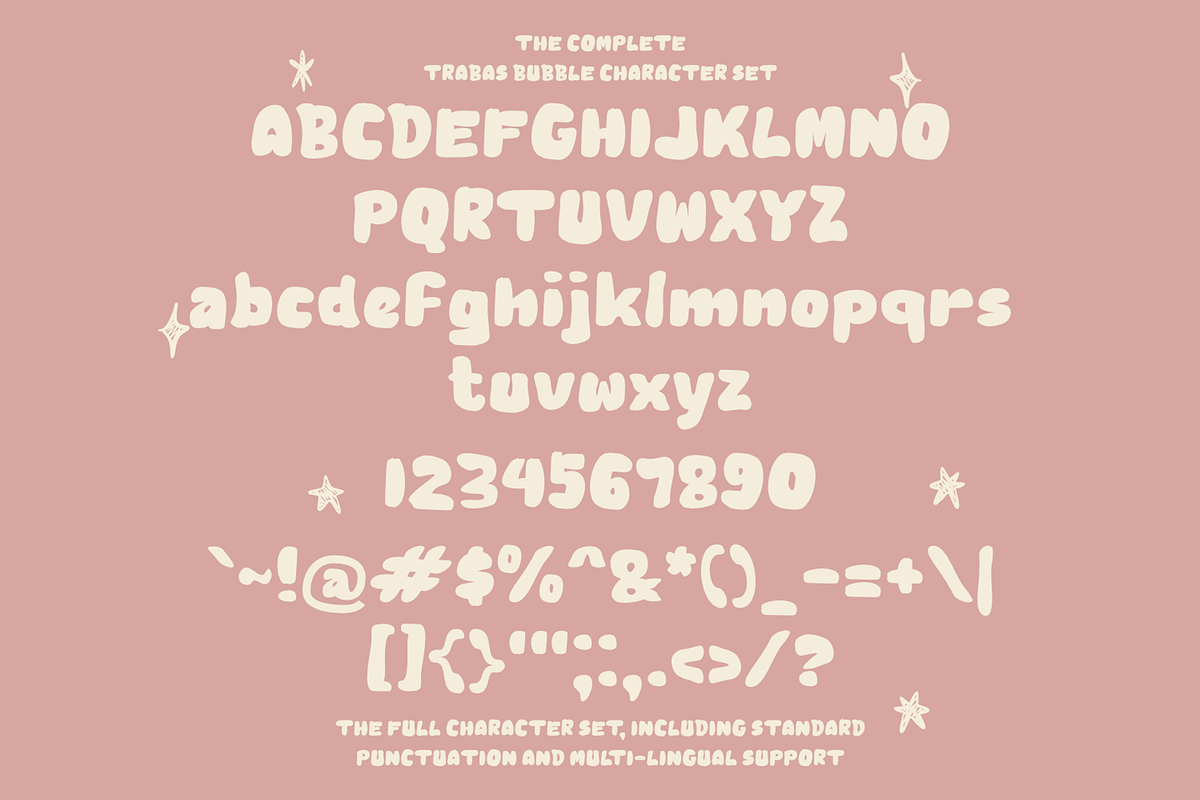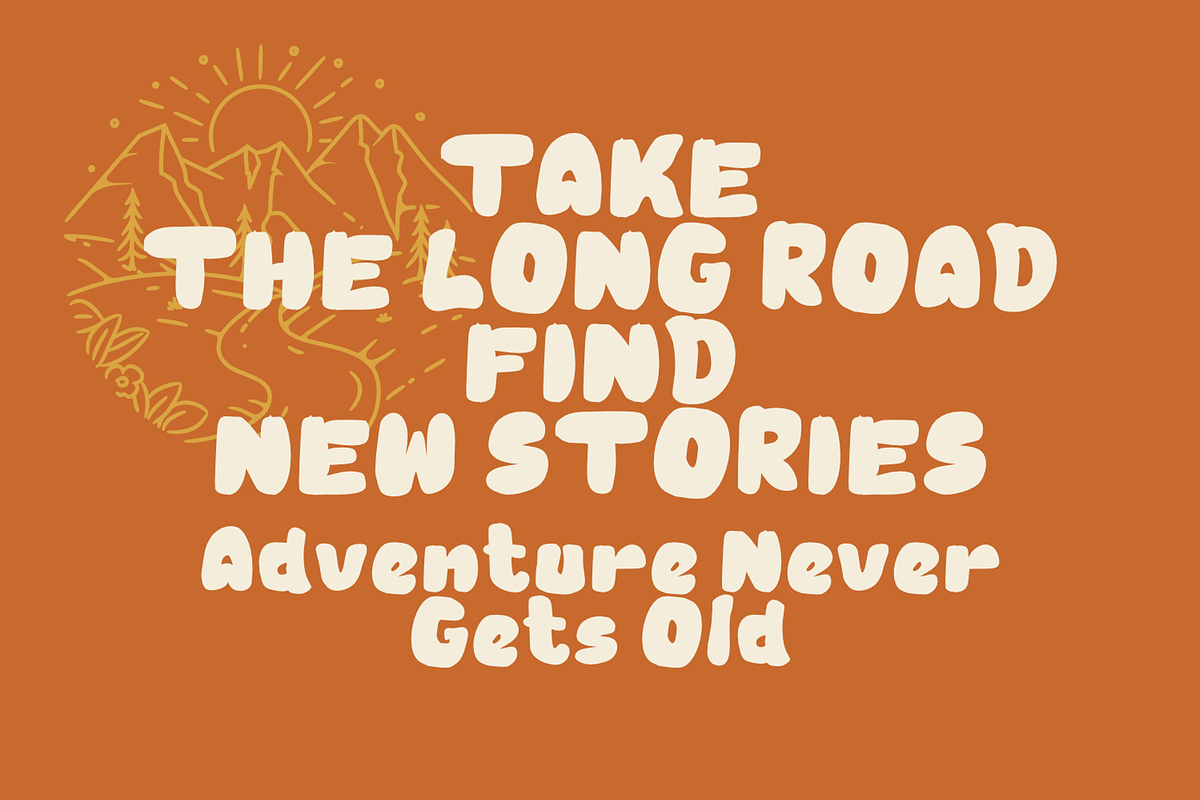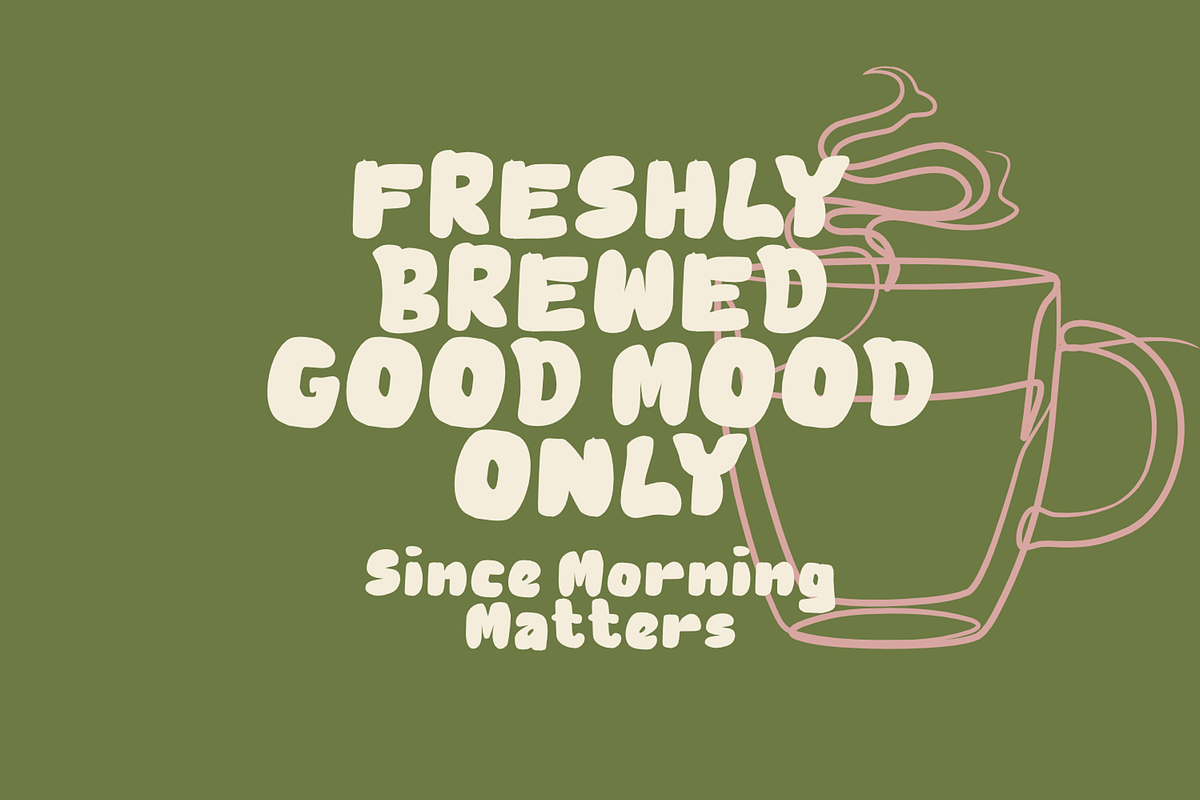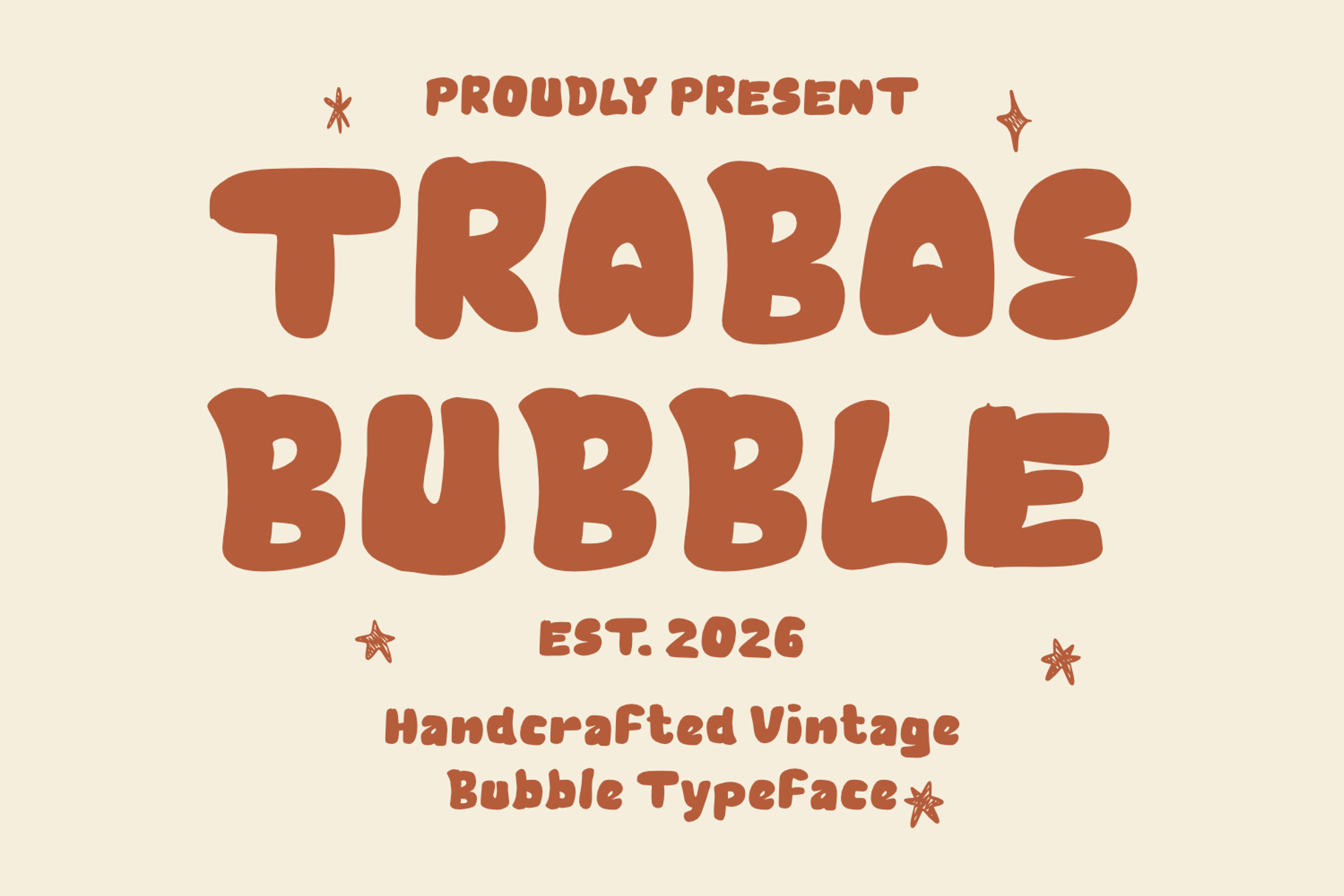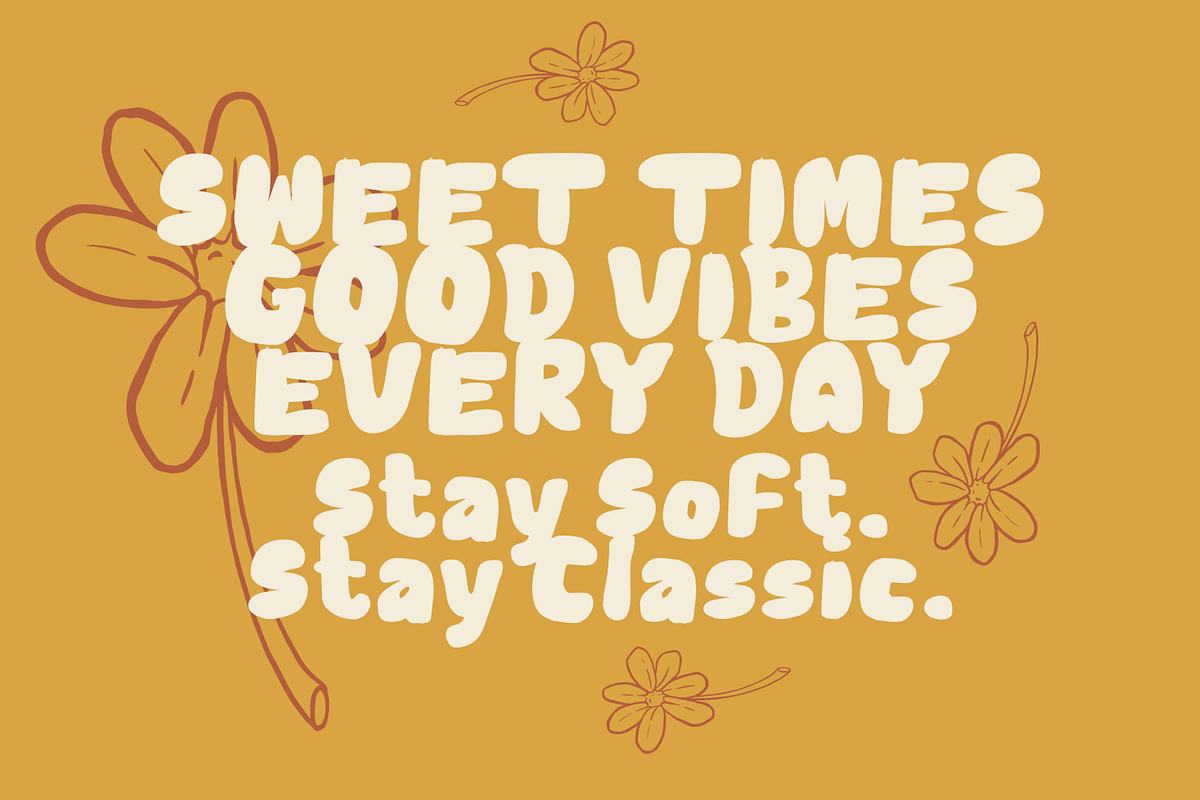
Trabas Bubble Vintage Display Font
Trabas Bubble is a bold, playful, and nostalgic display font inspired by the groovy aesthetics of the 70s and vintage bubble lettering. Featuring chunky curves, soft edges, and handcrafted character shapes, this typeface brings warmth, personality, and retro charm to every design.
Perfect for branding, logos, packaging, posters, merchandise, children's products, social media graphics, stickers, apparel, and creative projects that need a fun and eye-catching look. Trabas Bubble captures the spirit of classic vintage typography while remaining fresh, versatile, and easy to use.
Whether you're creating a retro-inspired brand or adding a cheerful touch to your designs, Trabas Bubble delivers bold visual impact with a friendly handmade feel